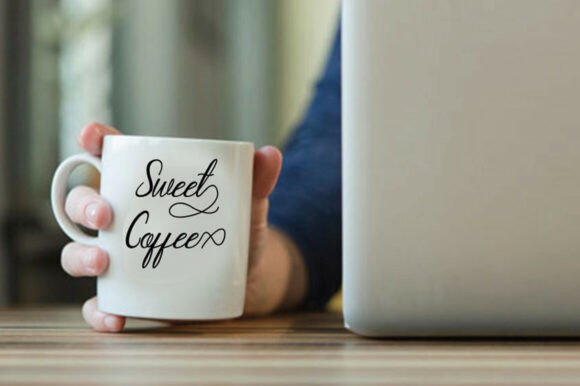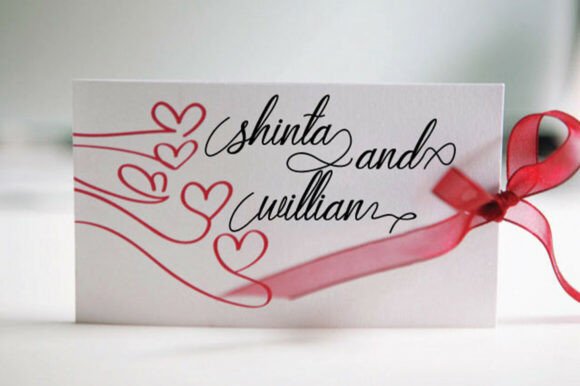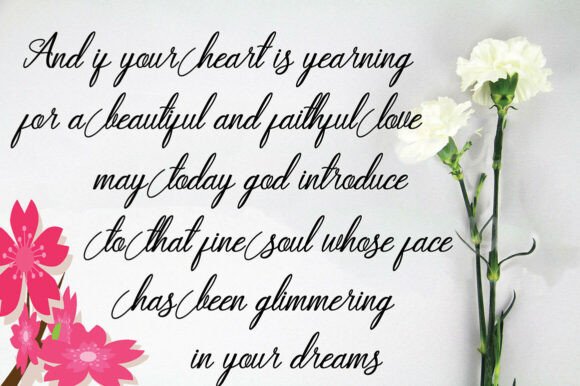
Introduction to Kila Katana Font
Kila katana Script New fresh & modern style with handmade calligraphy, decorative characters and dancing lineage.
So wonderful are invitations like greeting cards, branding material, business cards, quotes, posters, and more Kila katana Script The comes with 336 glyphs.